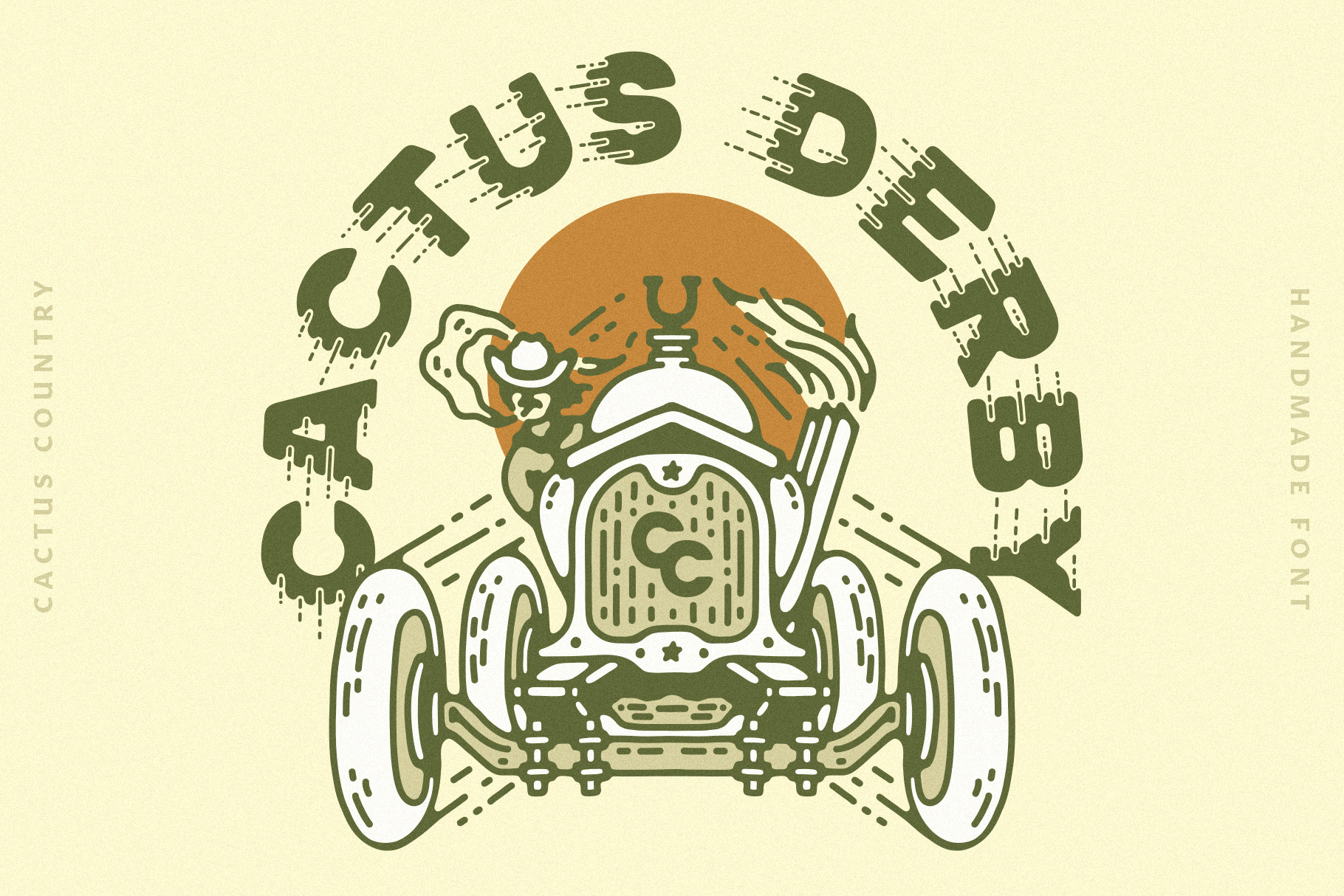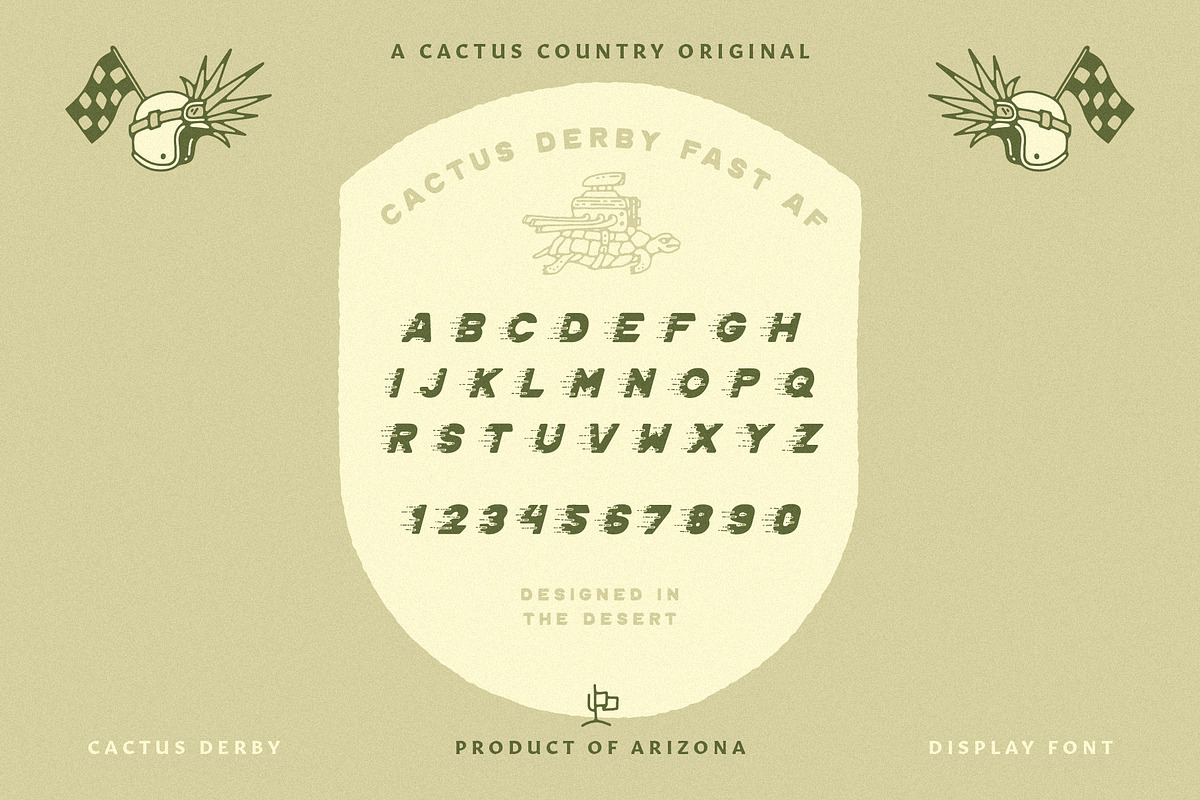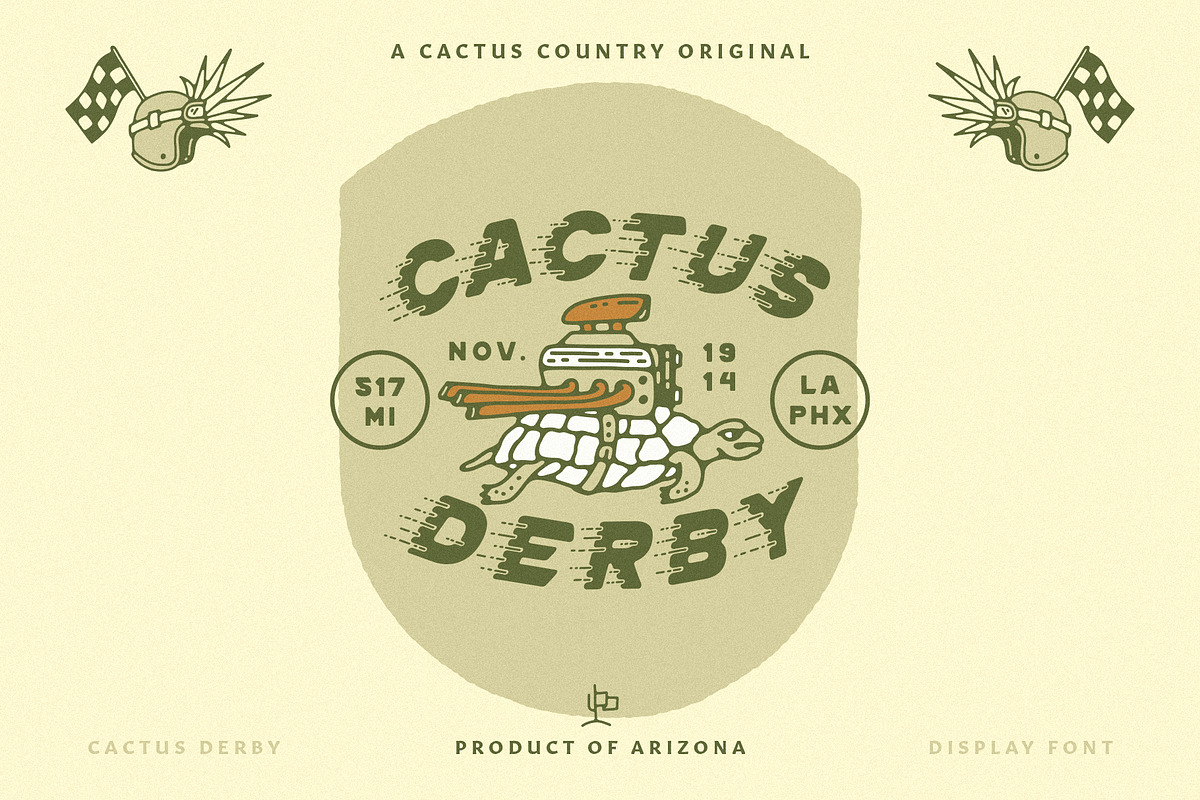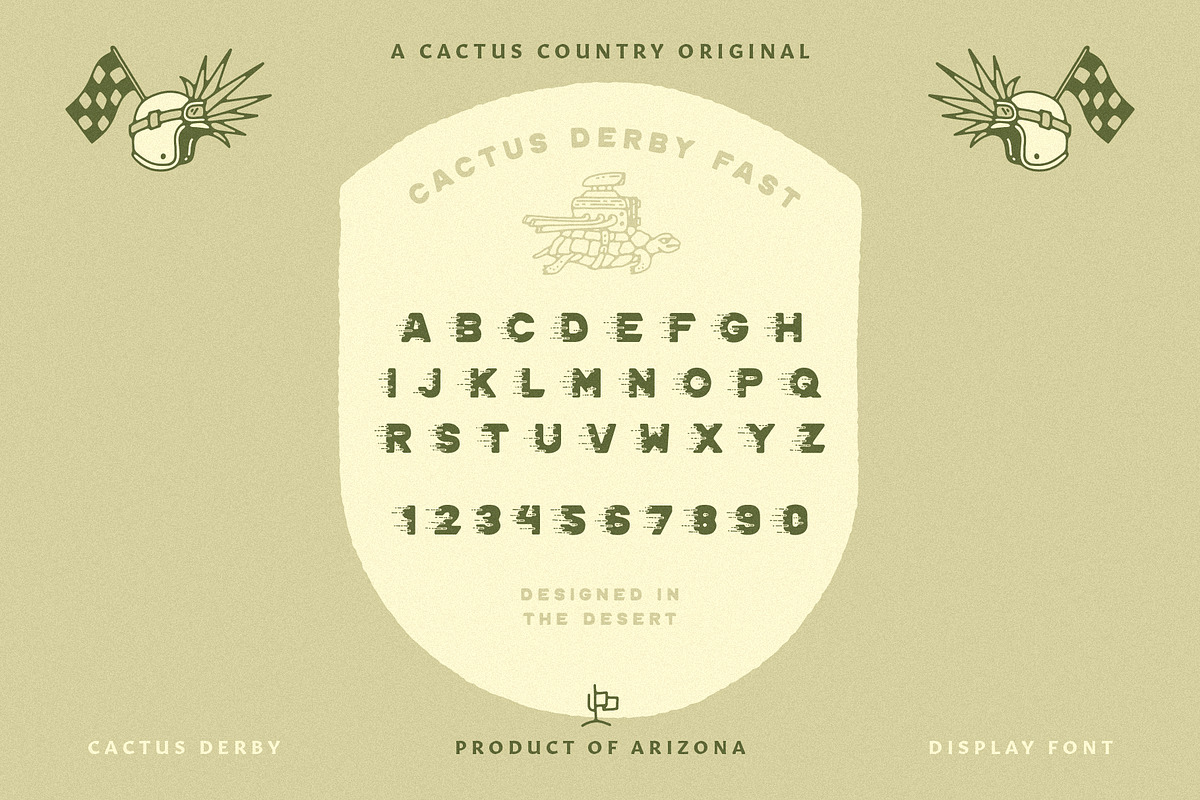
Cactus Derby Display Font
Introducing Cactus Derby, the fastest font in the West. Commencing in 1908, the demanding cross-country race started in Los Angeles and finished in Phoenix, Arizona. A grueling and cutthroat competition, drivers navigated over 500 miles of challenging terrain through deserts and mountains, pushing their abilities and stamina to the limit. This bold, sans serif display font features three varying weights and speeds, hand-drawn and ready for the open road.